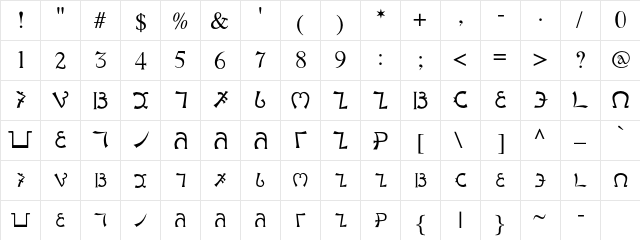
EnochianWriting Regular
Design Context for EnochianWriting Typeface
EnochianWriting is a composed and adaptable typeface that performs quietly and consistently across a wide range of design contexts.